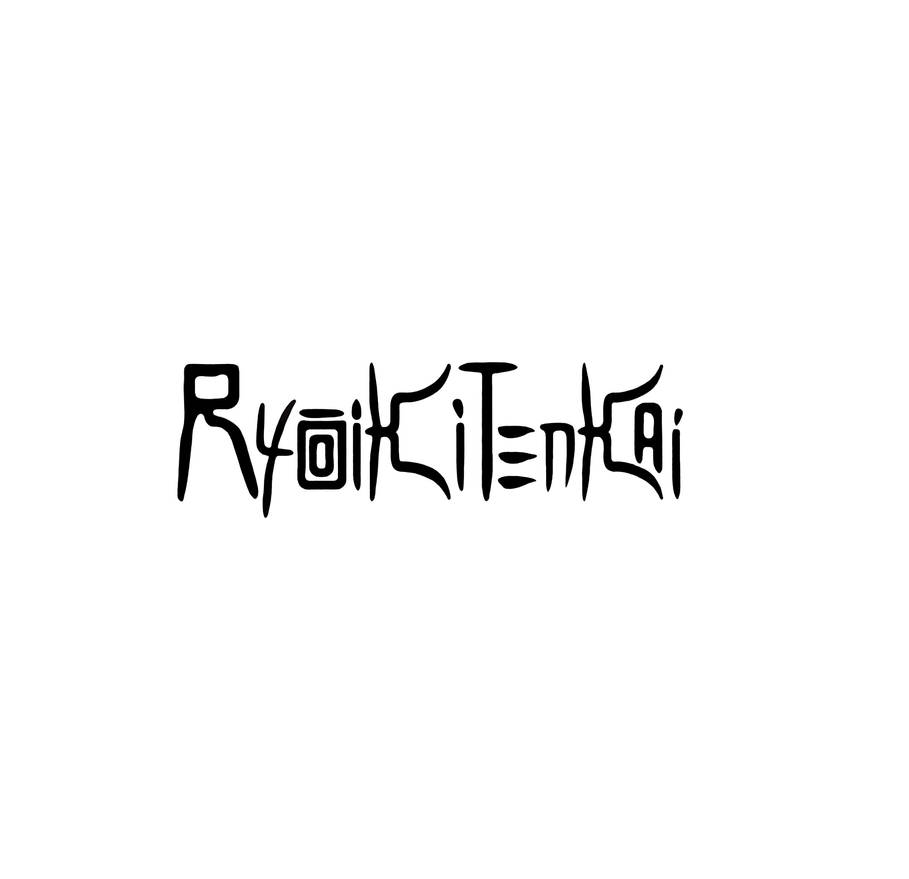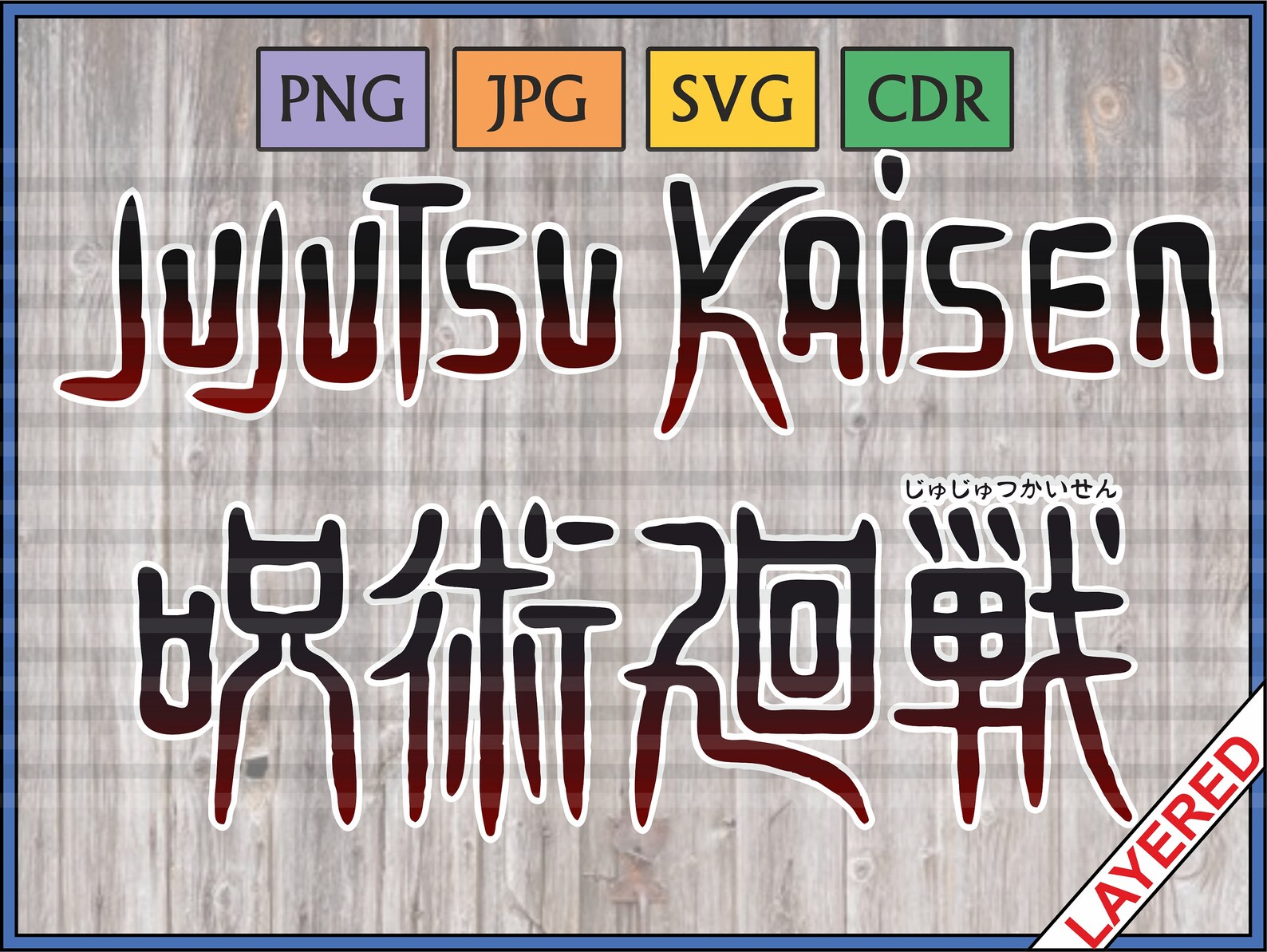
Jujutsu Kaisen Font Generator
Jujutsu Kaisen Font Generator - Web download jujutsu kaisen font for free from fontget, a script type font that can be used on any device. Web download the jujutsu kaisen font, a typeface designed on the popular manga and anime series by gege akutami. Every font is free to. Click to find the best 80 free fonts in the anime style. Web learn about the font used in the anime logo and poster of jujutsu kaisen, a popular series about a high school student who. Transform your text into a. Web create custom text effects and logos with jujutsu kaisen font online. Web fontget offers a large selection of anime fonts for free download in the highest quality available. Web create custom text effects and logos with jujutsu kaisen fonts and 3d text style effects. Web 1 to 15 of 80 results.
Web fontget offers a large selection of anime fonts for free download in the highest quality available. You can choose from various. Jujutsu kaisen is a font. Web 1 to 15 of 80 results. Web download jujutsu kaisen font for free from fontget, a script type font that can be used on any device. Choose from popular styles, colors, and effects, or use. Transform your text into a. Web create captivating works of art with the jujutsu kaisen font style text effect generator. Web create custom text effects and logos with jujutsu kaisen fonts and 3d text style effects. Click to find the best 80 free fonts in the anime style.
Web download jujutsu kaisen font for free from fontget, a script type font that can be used on any device. Web fontget offers a large selection of anime fonts for free download in the highest quality available. Click to find the best 80 free fonts in the anime style. Web 1 to 15 of 80 results. Choose from popular styles, colors, and effects, or use. Jujutsu kaisen is a font. Choose from a variety of. Web download the jujutsu kaisen font, a typeface designed on the popular manga and anime series by gege akutami. Transform your text into a. Web create captivating works of art with the jujutsu kaisen font style text effect generator.
Jujutsu kaisen is a font. Web fontget offers a large selection of anime fonts for free download in the highest quality available. Choose from a variety of. Transform your text into a. Click to find the best 80 free fonts in the anime style.
Web download the jujutsu kaisen font, a typeface designed on the popular manga and anime series by gege akutami. Web 1 to 15 of 80 results. Web create captivating works of art with the jujutsu kaisen font style text effect generator. Web create custom text effects and logos with jujutsu kaisen fonts and 3d text style effects. Web download jujutsu.
Web download the jujutsu kaisen font, a typeface designed on the popular manga and anime series by gege akutami. Web fontget offers a large selection of anime fonts for free download in the highest quality available. Web create captivating works of art with the jujutsu kaisen font style text effect generator. Web 1 to 15 of 80 results. You can.
You can choose from various. Web learn about the font used in the anime logo and poster of jujutsu kaisen, a popular series about a high school student who. Web create custom text effects and logos with jujutsu kaisen fonts and 3d text style effects. Jujutsu kaisen is a font. Click to find the best 80 free fonts in the.
Web create custom text effects and logos with jujutsu kaisen fonts and 3d text style effects. Web fontget offers a large selection of anime fonts for free download in the highest quality available. Choose from popular styles, colors, and effects, or use. You can choose from various. Web download the jujutsu kaisen font, a typeface designed on the popular manga.
Web download the jujutsu kaisen font, a typeface designed on the popular manga and anime series by gege akutami. Web 1 to 15 of 80 results. Web download jujutsu kaisen font for free from fontget, a script type font that can be used on any device. Web create captivating works of art with the jujutsu kaisen font style text effect.
Jujutsu kaisen is a font. Click to find the best 80 free fonts in the anime style. Choose from a variety of. Choose from popular styles, colors, and effects, or use. Web download the jujutsu kaisen font, a typeface designed on the popular manga and anime series by gege akutami.
Web create custom text effects and logos with jujutsu kaisen fonts and 3d text style effects. Transform your text into a. Choose from popular styles, colors, and effects, or use. Web fontget offers a large selection of anime fonts for free download in the highest quality available. Web create custom text effects and logos with jujutsu kaisen font online.
Choose from a variety of. Every font is free to. Web create custom text effects and logos with jujutsu kaisen fonts and 3d text style effects. Web 1 to 15 of 80 results. Web download the jujutsu kaisen font, a typeface designed on the popular manga and anime series by gege akutami.
Web create custom text effects and logos with jujutsu kaisen fonts and 3d text style effects. Choose from a variety of. Web create captivating works of art with the jujutsu kaisen font style text effect generator. Choose from popular styles, colors, and effects, or use. Web learn about the font used in the anime logo and poster of jujutsu kaisen,.
Web learn about the font used in the anime logo and poster of jujutsu kaisen, a popular series about a high school student who. Web 1 to 15 of 80 results. Web download jujutsu kaisen font for free from fontget, a script type font that can be used on any device. Web fontget offers a large selection of anime fonts for free download in the highest quality available.